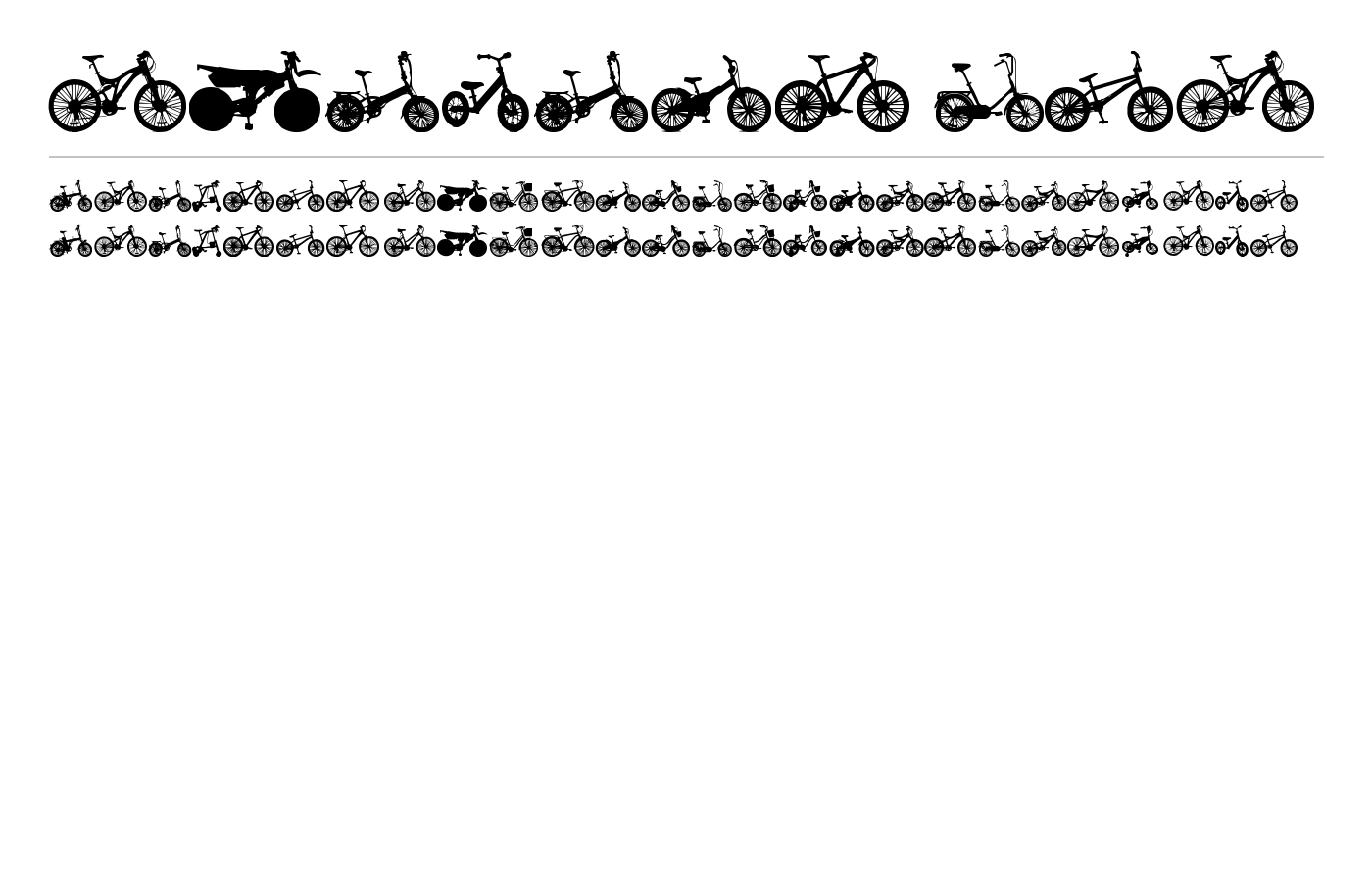
Bicycle tfb is a unique symbol font featuring detailed silhouettes of various bicycle and motorcycle designs. Its playful and distinctive style makes it perfect for decorative use in cycling-related branding, posters, or creative editorial projects where a fun, thematic visual element is desired. This font adds personality and charm through its clear, recognizable shapes rather than traditional text.
About bicycle tfb Font